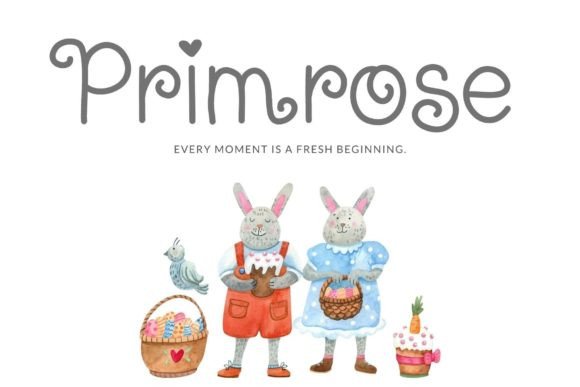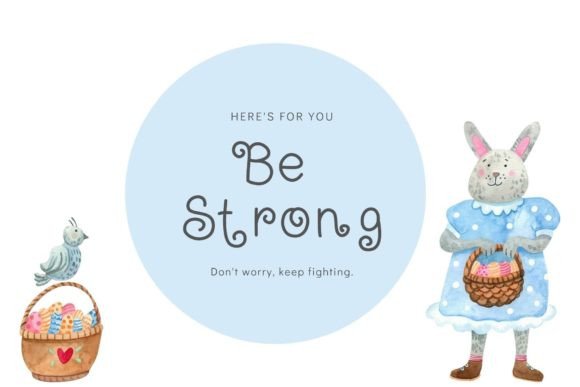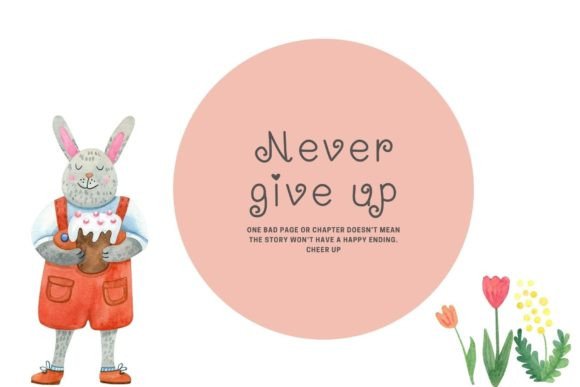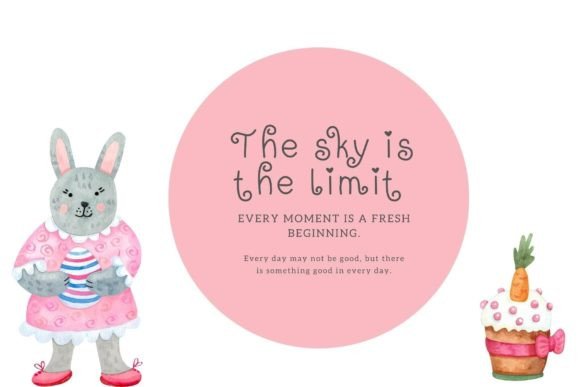
About Primrose Font
The Primrose font is a delightful blend of simplicity and fun, designed to infuse your creations with a touch of charm. This font is a perfect choice for those seeking to create designs that are both simple and attention-grabbing, making it stand out effortlessly. Its versatility shines through, particularly complementing minimalist theme designs, whether they lean towards a sleek black palette or vibrant bursts of color.
At the heart of the Primrose font is its ability to effortlessly convey a sense of simplicity while ensuring your designs stand out from the crowd. The clean lines and unpretentious style make it a great companion for various projects, allowing your work to exude a subtle sophistication that captures attention.
This font finds its sweet spot in minimalist-themed designs, where less is more, and simplicity is key. The Primrose font doesn’t just adhere to these principles; it elevates them, making your designs not only simple but also memorable. Whether applied to black and white compositions or infused with a spectrum of colors, this font adapts seamlessly, enhancing the overall visual appeal of your creations.
Consider adding the Primrose font to your arsenal of creative tools, as it has the potential to transform your work into a more engaging and inspired form. Its ability to bring a touch of fun to your designs makes it a valuable asset, especially when seeking to create a lighthearted and enjoyable visual experience.
Incorporate this lovely font into your projects, and witness how it can infuse a sense of playfulness and inspiration. Whether you’re working on branding, posters, social media graphics, or any other creative endeavor, let the Primrose font be the catalyst for making your work more enjoyable, more spirited, and ultimately more memorable. Embrace the simplicity and fun that Primrose brings to the table, and let it be a source of inspiration in your creative journey.